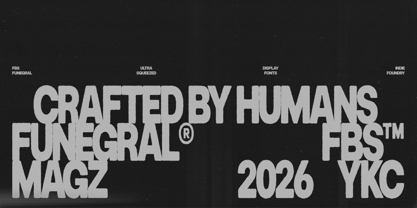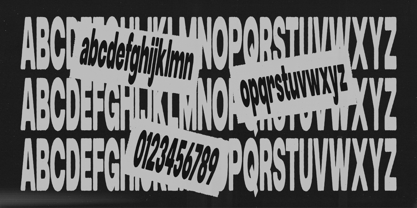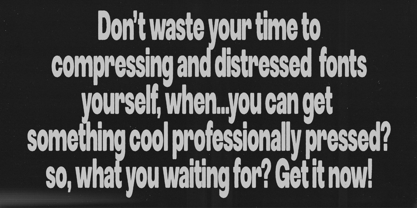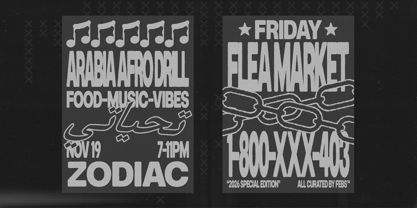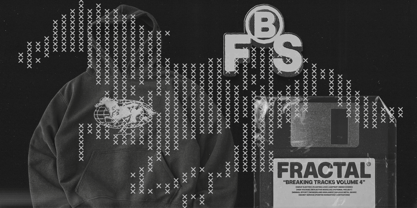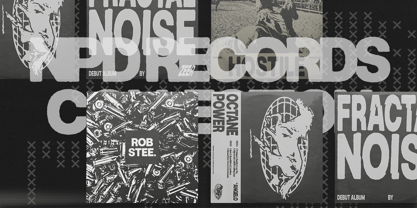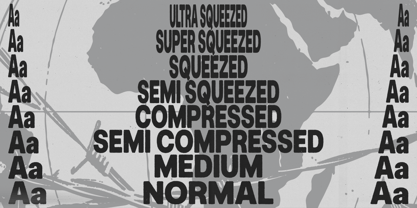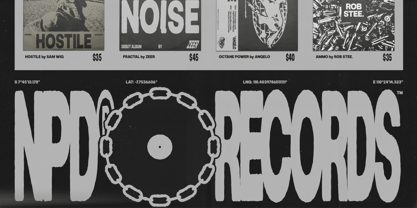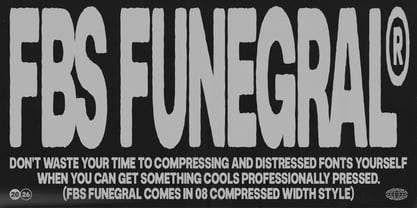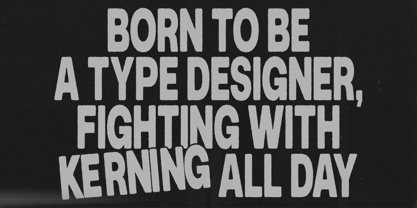
FBS Funegral
by Febspace Studio
The FBS Funegral Font Family was designed by Febri Riansah and published by Febspace Studio. FBS Funegral contains 8 styles and family package options. More about this family
FBS FUNEGRAL: Stop Compressing, Start Designing.
FBS FUNEGRAL is a high-impact compressed typeface built to deliver raw, brutalist energy without the need for manual distortion. Designed with a “pressed” aesthetic, it moves seamlessly from ultra-squeezed tension to more readable widths—perfect for bold headlines that demand attention.
Inspired by street grit and industrial precision, FUNEGRAL features a subtle rough texture that mimics ink bleed and worn print. It’s loud, tactile, and unapologetically aggressive—ideal for streetwear, editorial, posters, and high-energy digital layouts where space is tight but impact is non-negotiable.
Features:
• 8 width styles (Normal to Ultra Squeezed)
• Built-in distressed texture
• Precision kerning for tight layouts